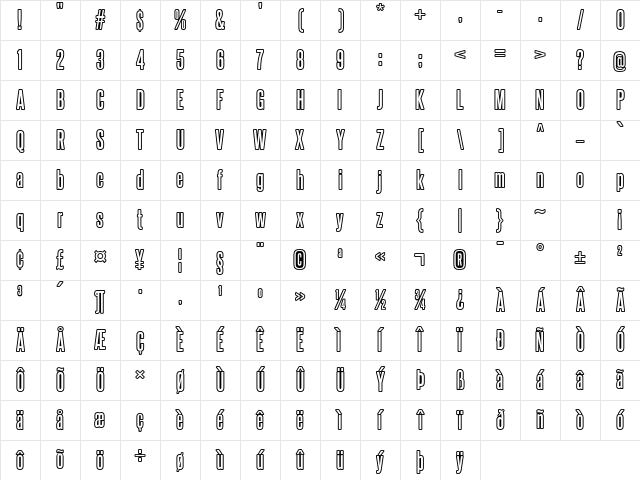
Steelfish Outline Free Font
Steelfish Outline
Style: Outline
Design Context for Steelfish
Steelfish is built around its visual character rather than neutral utility - its distinctive forms are designed to make an impression at display sizes.
Font Pairing: Pair with a clean neutral sans-serif for body copy to let Steelfish's character lead without overwhelming the composition.
Pro Tip: Use Steelfish exclusively at display sizes - it was designed to be seen, not read at length. Let a neutral companion handle body copy.